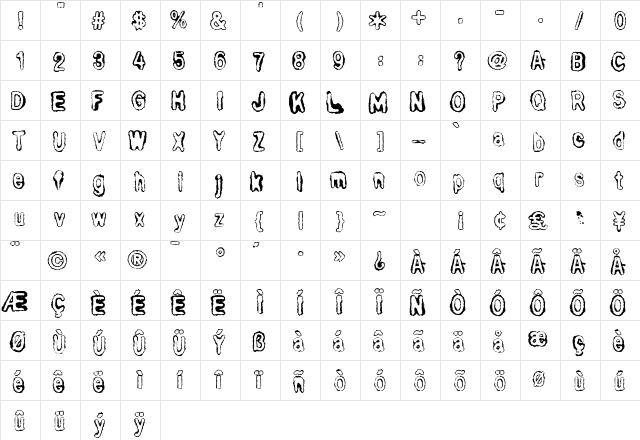
Bull Outline
Design Context for Bull Typeface
Bull brings ornamental detail and strong personality to headlines and identities, where visual impact matters more than quiet functionality.
Font Pairing: Pair with a clean neutral sans-serif for body copy to let Bull's character lead without overwhelming the composition.